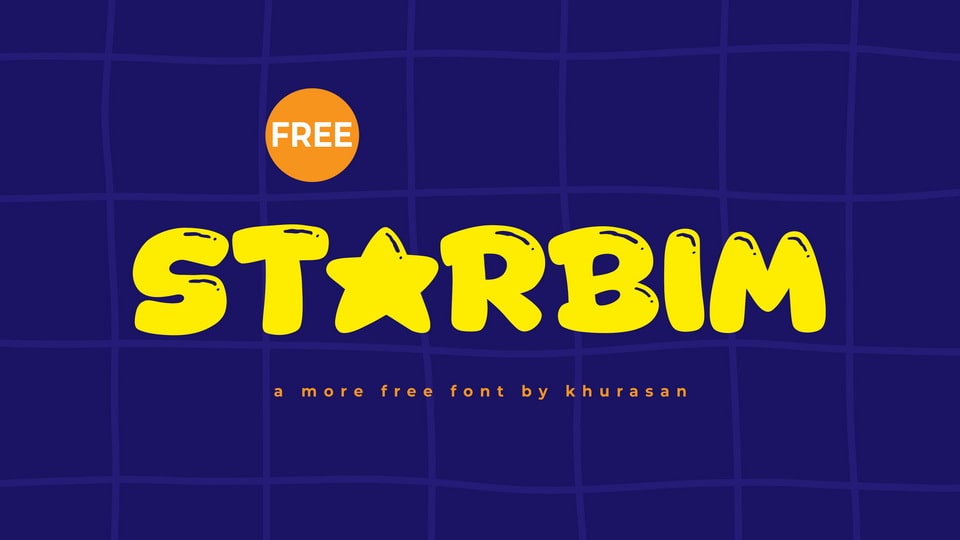
Download Starbim font, a cheerful and bubbly hand-drawn display typeface bursting with personality and chunky, rounded letterforms and playful details.